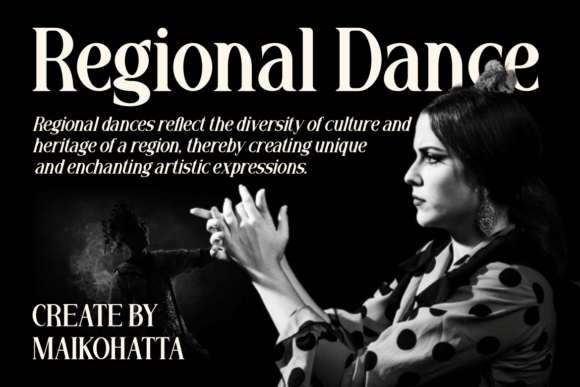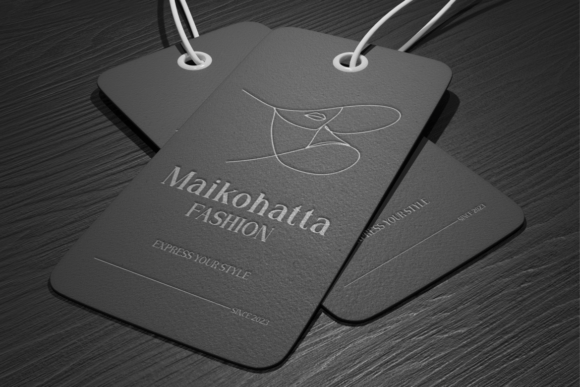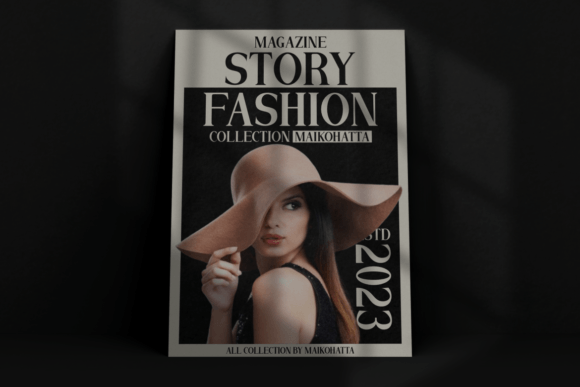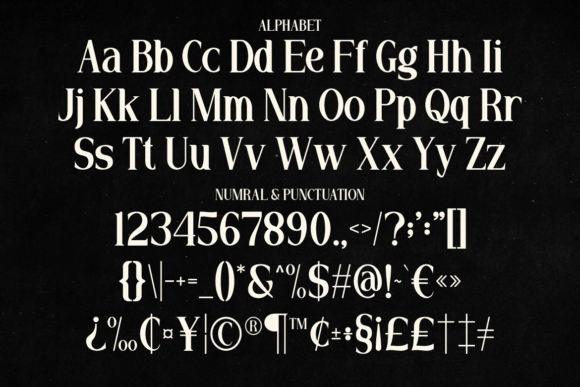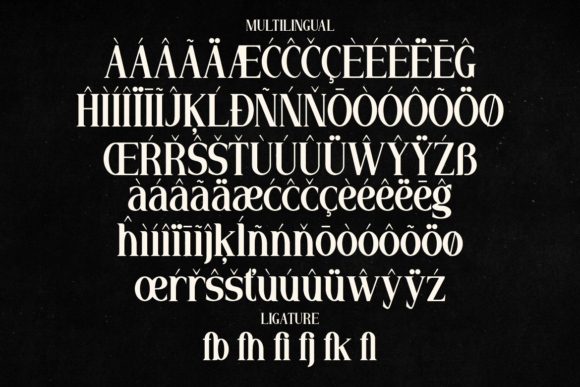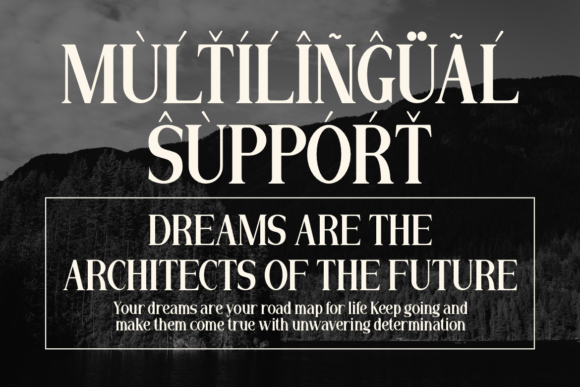
Introduction to Ragfile Font Font
Fonts play a crucial role in design, and the Ragfile Font font is a typeface that brings both character and versatility to any project. Whether you’re working on a branding project, a website, or a print design, the Ragfile Font font offers a unique style that can elevate your work.
Introducing our new product **Ragfile – Display Serif Typeface** This font is a typographic masterpiece that harmonizes elegance and sharpness.
Every letter within this font is meticulously designed, with a keen focus on balanced proportions and impeccable alignment This font is well-suited for a variety of contexts, such as print design, promotional materials, or magazine layouts.
The Ragfile Font font is more than just a typeface – it’s a design tool that helps you communicate your message with style and clarity. Its unique character set and versatile design make it suitable for a wide range of applications, from elegant invitations to bold headlines.
With its carefully crafted letterforms and balanced proportions, the Ragfile Font font ensures readability and visual appeal across all mediums.
The Ragfile Font font stands out with its unique design, exceptional readability, and versatility across various design applications.